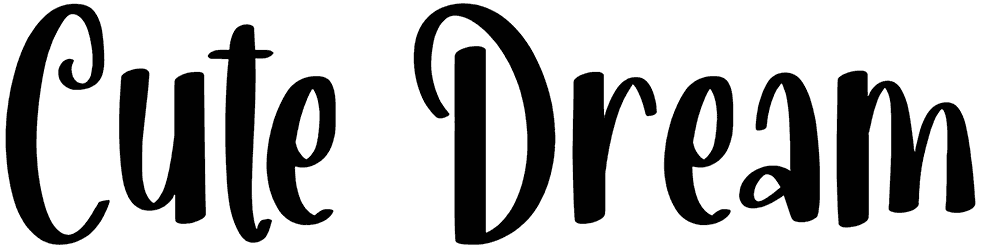
Cute Dream Font
Anything sounds more enchanting when you let Cute Dream talk about it. Thanks to its dreamy vibes, you’ll have no problem making your words taste sweet. There’s a pretty wide range of projects where you can get creative with this cute font. It can be a poster advertising your gift shop, the website design of a bakery, logos for art classes, or even labels for pieces of jewels, this wonderful curly font does it all without any numbers or punctuation.